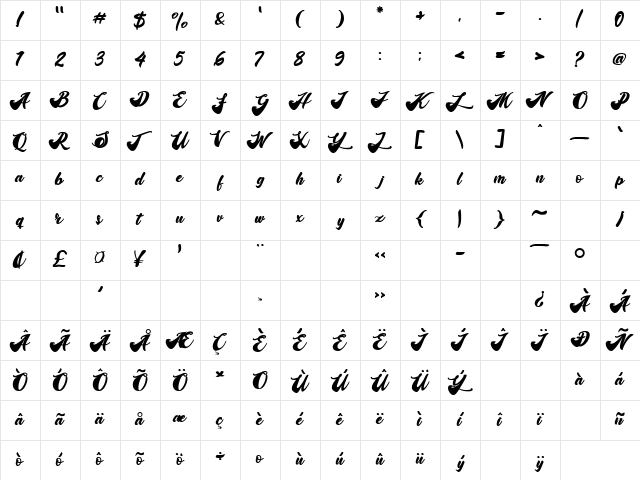
Morning Sunshine Regular
| Designer | Saepul milah |
Design Context for Morning Sunshine Typeface
Morning Sunshine is a composed and adaptable typeface that performs quietly and consistently across a wide range of design contexts.